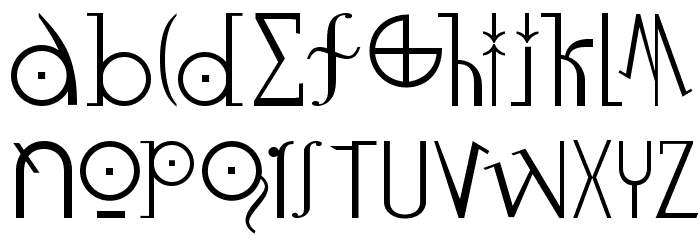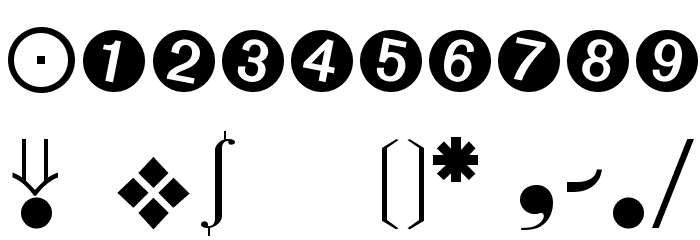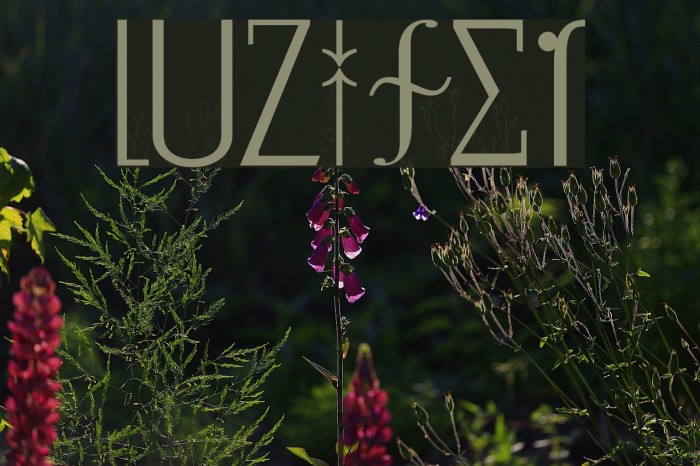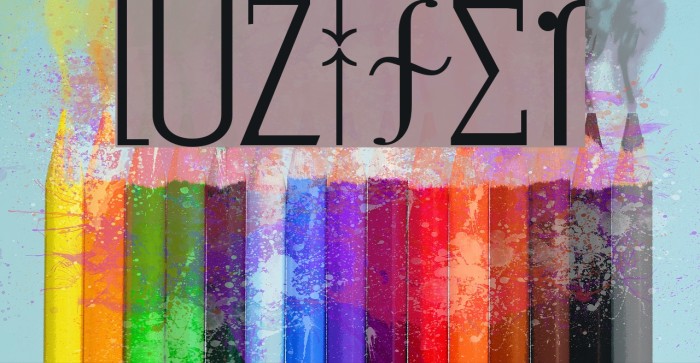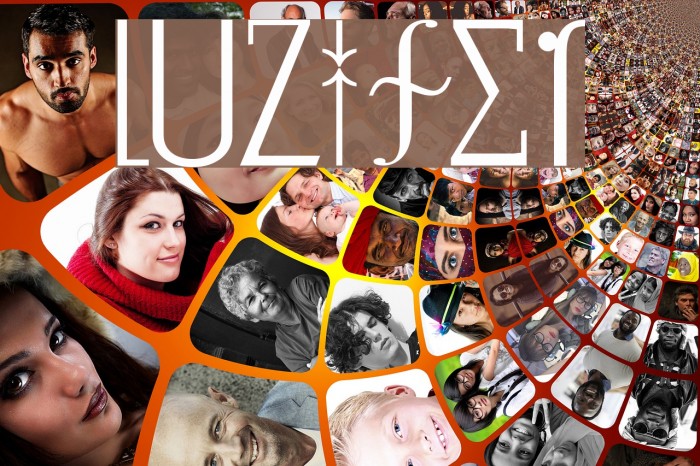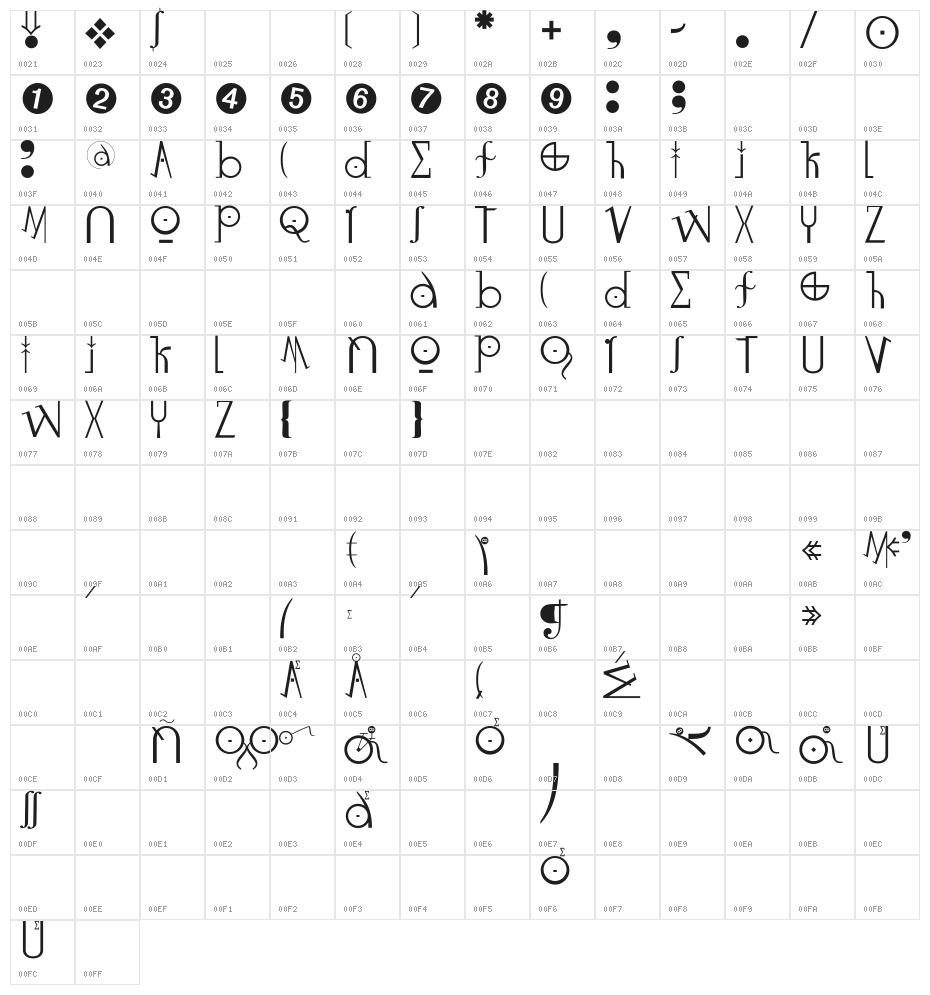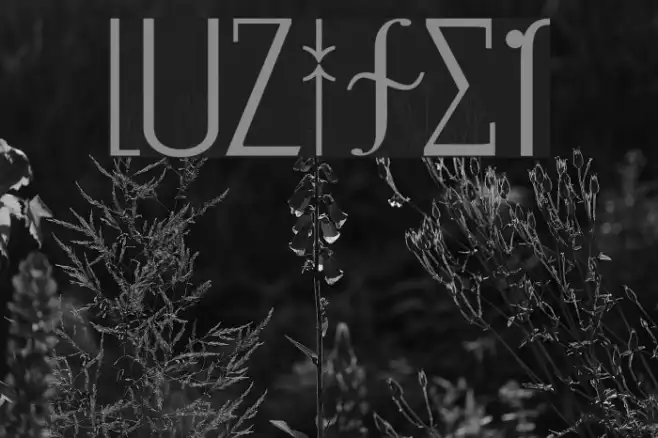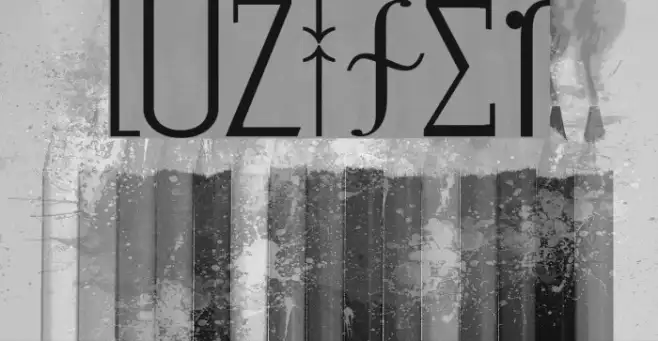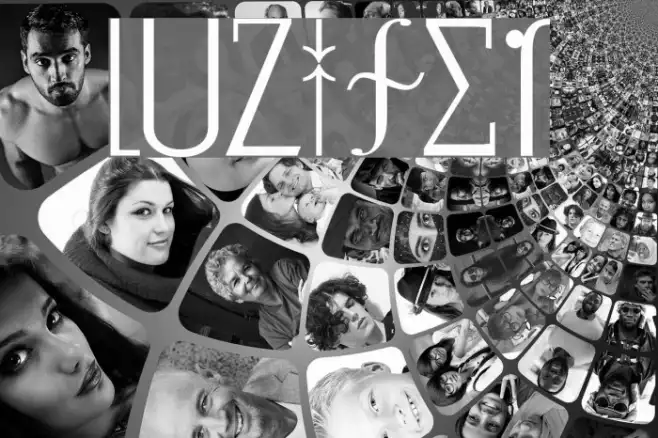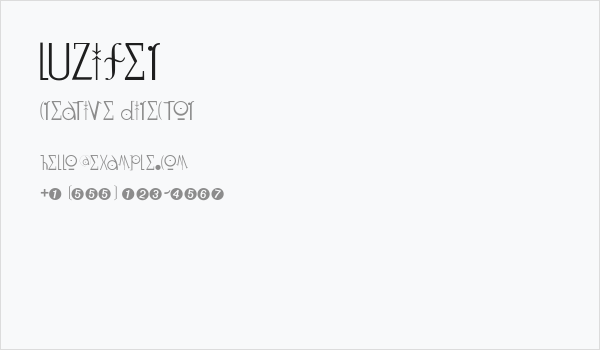
LuziFer Font
This font features a highly decorative and unique style, characterized by geometric shapes and abstract elements. The letters incorporate circles, lines, and angles, creating a futuristic and avant-garde appearance. The uppercase and lowercase letters share similar design elements, maintaining consistency throughout. Numbers are enclosed in circles, adding to the distinctiveness of the font. Special characters are designed with creativity, incorporating various geometric and symbolic forms. The overall design is bold and eye-catching, making it suitable for artistic and unconventional projects.
A decorative and geometric font with a futuristic and avant-garde style.
- Proposed Projects: Ideal for artistic projects, branding for tech companies, sci-fi themed designs, and modern art installations.
- Overall Style: Futuristic, Avant-garde
- Use Case: Logos, Posters, Album covers